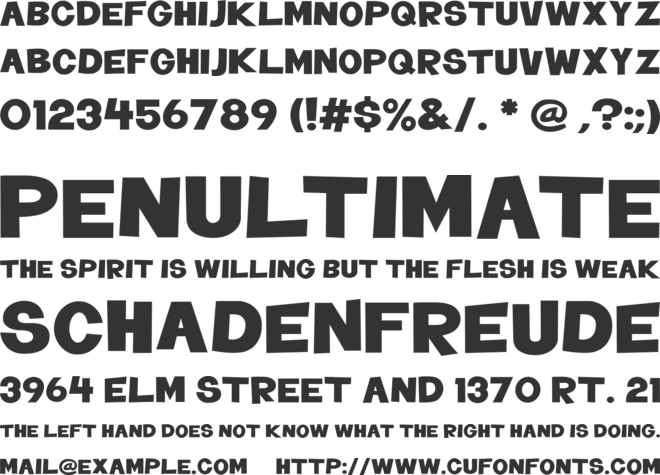
TELETOON Custom Font
There was a notion I had that TELETOON Custom wasn’t designed as a typable font to begin with, so that’s where the urge to fix it kicks in. Enjoy!
Also, the character set may be limited, so expect some changes to take effect. That is if it’s feasible…